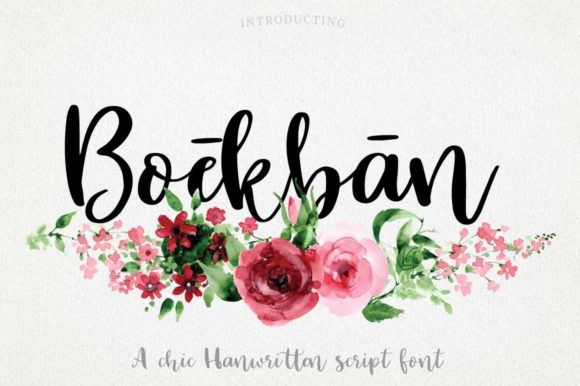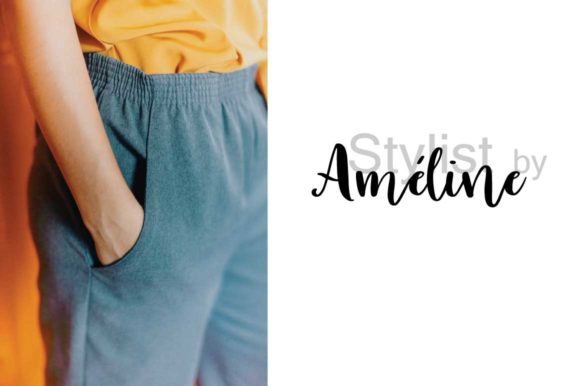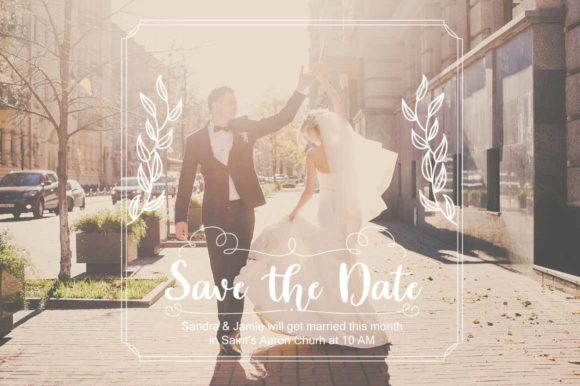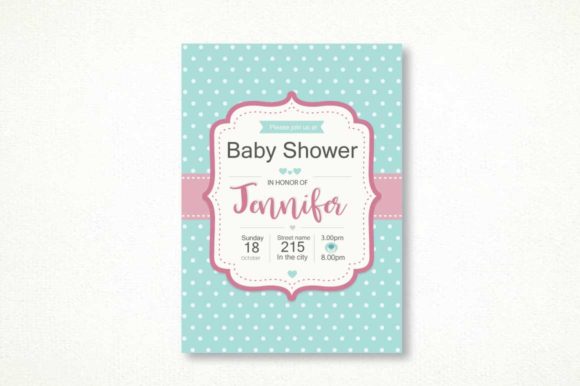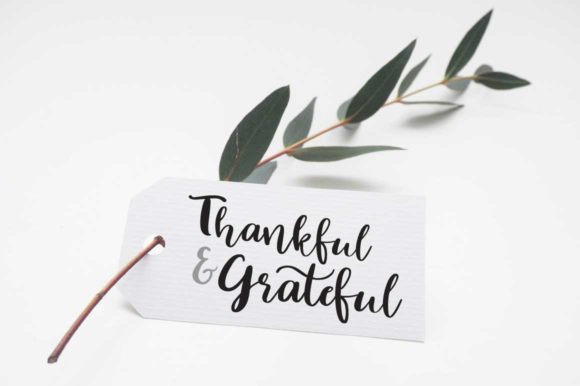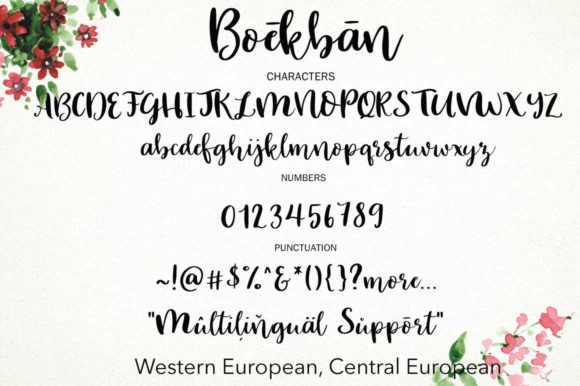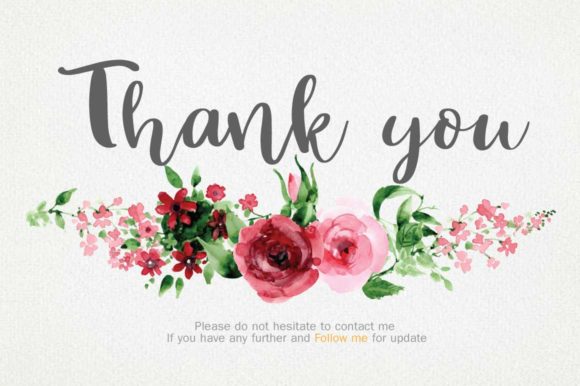
Boekban Font
About Boekban Font
The Boekban is a casual handwritten script font. It has a striking, yet elegant style and will add a feminine feel to your designs.